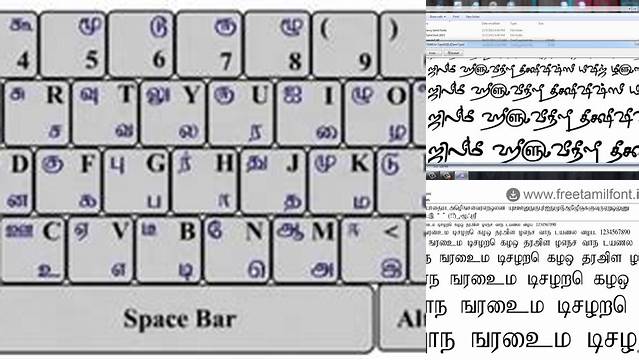
Benefits of Using Bamini Font
Why choose the Bamini font? Well, there are several benefits that make it a popular choice for typing in Tamil. Firstly, it is highly readable. The design of the Bamini font ensures that Tamil text is clear and easy to read, making it ideal for various applications, from casual correspondence to official documents. Bamini font is designed with clarity in mind, so it's easy on the eyes, which is great if you're going to be doing a lot of writing. It's also widely compatible. The Bamini font works with many different operating systems and applications, including Microsoft Word 2007 and newer versions. The font's wide compatibility ensures that you can use it on different devices and platforms, ensuring that your Tamil text is displayed correctly. Moreover, the Bamini font is also incredibly easy to use. The straightforward design makes it accessible to both beginners and experienced users. Another major advantage is its phonetic keyboard layout. This means you can type Tamil using the standard English keyboard, which makes the learning curve much easier, especially for those new to Tamil. You don't need to learn a completely new keyboard layout to type in Tamil. The phonetic layout simplifies the typing process, letting you focus on what you're writing rather than memorizing complex character combinations. Bamini font is free and easy to download. It's readily available and can be downloaded from various websites without any charges. This accessibility makes it easy for anyone to access and start using the font immediately. Moreover, the Bamini font is a reliable choice. It's been around for quite a while, and its consistent performance has made it a go-to choice for Tamil typing. The font's widespread usage and positive reputation make it a trusted option for various users. Using the Bamini font allows you to express your thoughts and communicate effectively in the Tamil language. This is very important for people who want to write in Tamil. When you're choosing a font, Bamini font is the perfect choice to make your text visible.